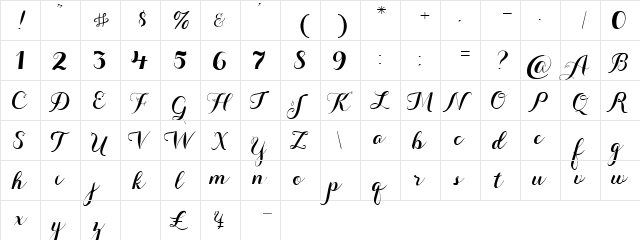
Aurella Script
| Style | Script |
| Foundry | Fontdation Studio |
| Designer | Fontdation |
Design Context for Aurella Typeface
Aurella brings a calligraphic fluidity to the page — its connecting strokes and expressive curves give it an unmistakably human quality.
Font Pairing: Combine Aurella with a simple geometric sans for maximum contrast — the tension between flowing curves and clean structure is a classic typographic pairing.
Pro Tip: Use Aurella for short runs of text — names, titles, or taglines. Extended body copy in script faces tires the eye quickly.